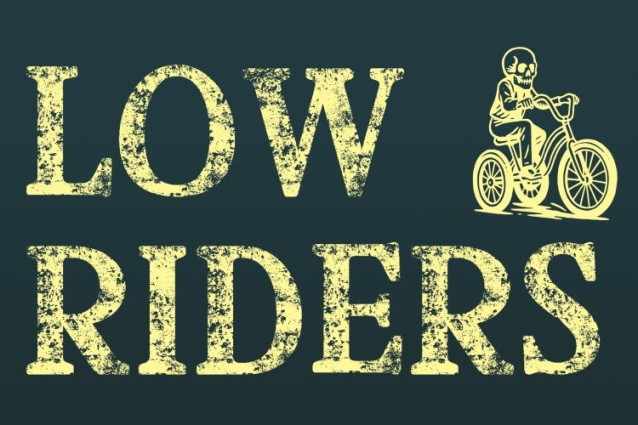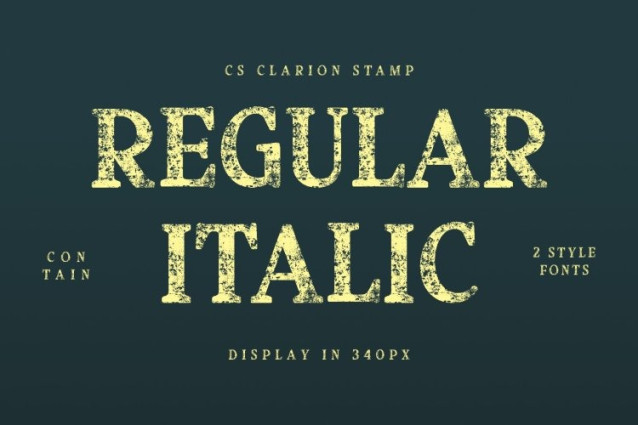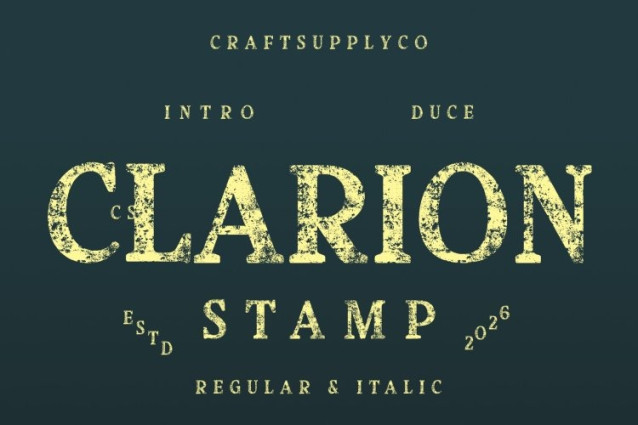
CS Clarion Stamp Font
CS Clarion Stamp Font This is a modern serif font that balances polished sophistication with charming, playful details. Its clean and elegant structure forms a professional foundation, while subtle quirks in selected letterforms introduce a relaxed and contemporary personality. This harmony makes the font feel confident, stylish, and refreshingly distinctive.
Smooth Curves with Warm Visual Flow
Featuring smooth lines and gentle transitions, delivers a warm and inviting impression. The flowing strokes create visual harmony and excellent readability, ensuring the font feels approachable without losing its refined, modern character.
Stamped Texture for Artistic Depth
The stamped style adds a lightly rough, uneven texture that brings authenticity and handcrafted appeal. This artistic layer gives the font a tactile, expressive quality introducing vintage nuance while keeping the overall look modern and sophisticated.
Perfect for Luxury Branding and Editorial Design
Designed for high-end branding, editorials, posters, and refined visual identities, this font adapts beautifully to both headlines and supporting text. Its blend of elegance, personality, and stamped character makes it ideal for projects that seek modern luxury with an artistic edge.